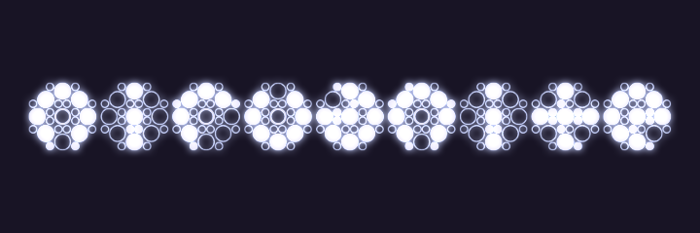
Nirvanite Font
About Nirvanite Font
Experimental mosaic... or maybe a new mineral species?
This one started as a doodle. I began placing circles to see what kinds of complex shapes I could make, and this was the result.